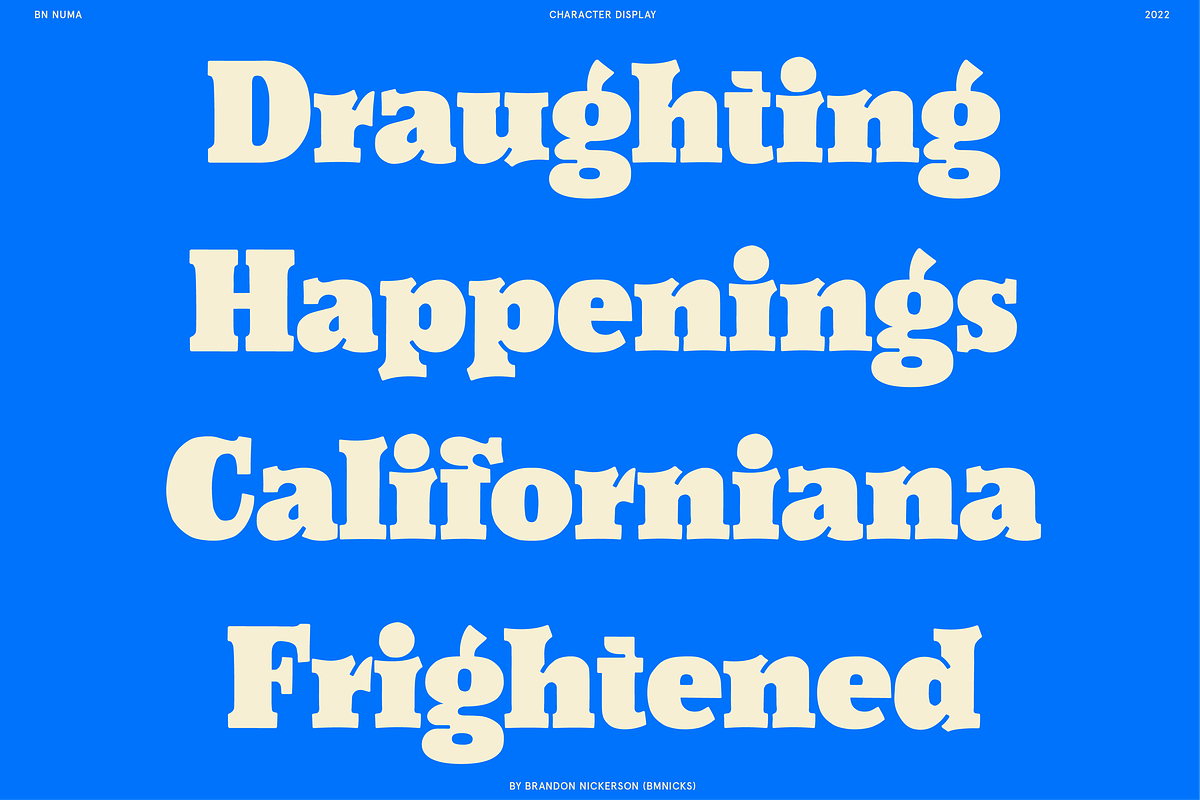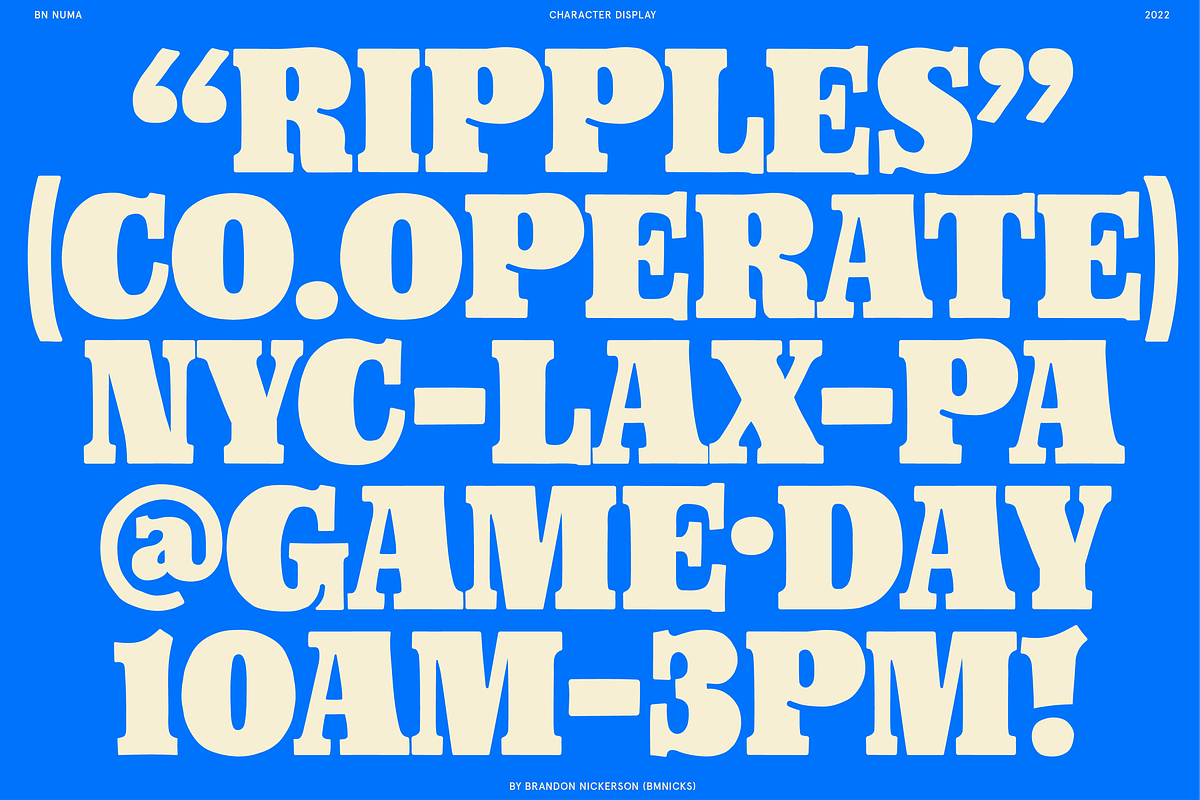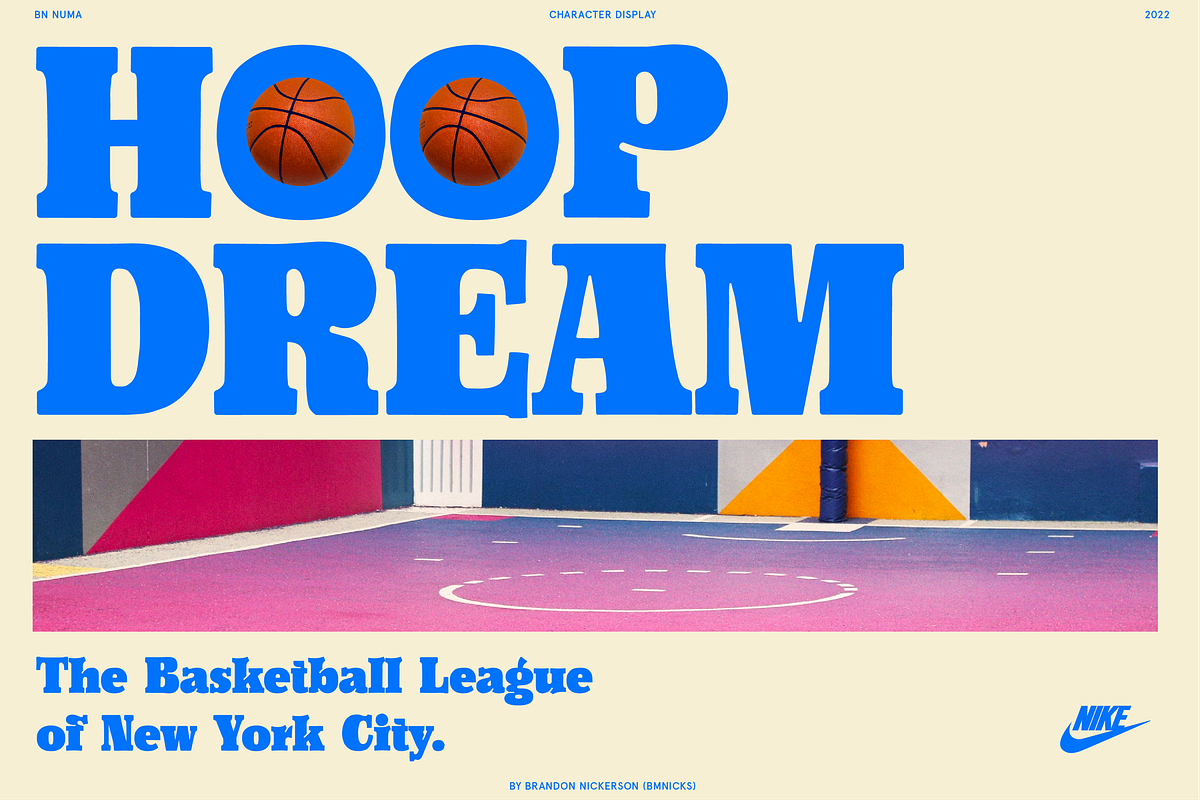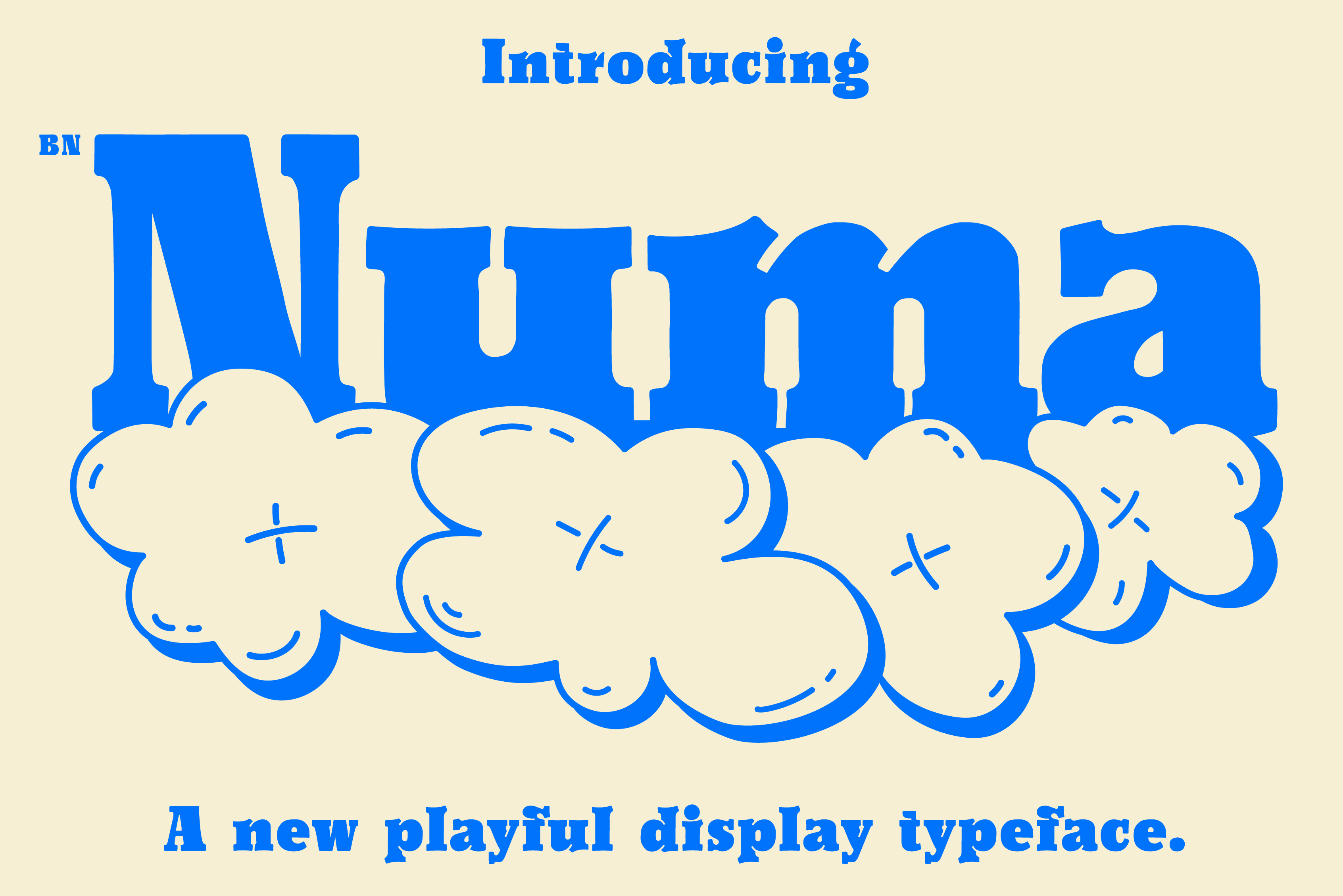
Numa - A Playful Display Typeface
Introducing BN Numa! A new serif display typeface with much personality. BN Numa is perfect for creating layouts, logos and more.